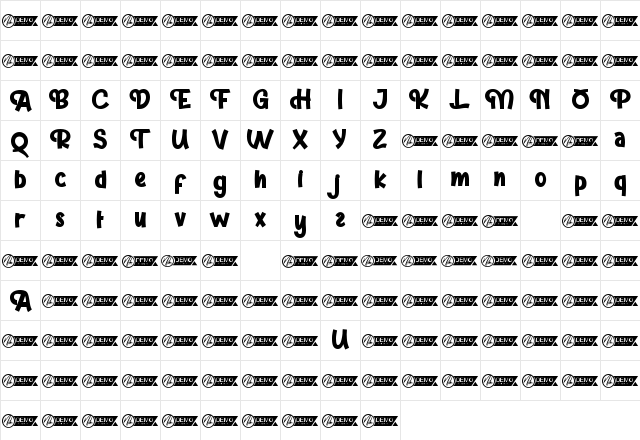
Teenage Lady Demo Bold Free Font
Teenage Lady Demo Bold
Teenage Lady Demo Family
Design Context for Teenage Lady Demo
Teenage Lady Demo is a composed and adaptable typeface that performs quietly and consistently across a wide range of design contexts. Its bold stroke weight gives it real presence on the page.